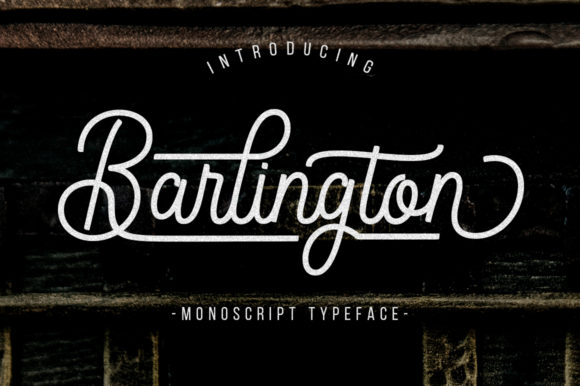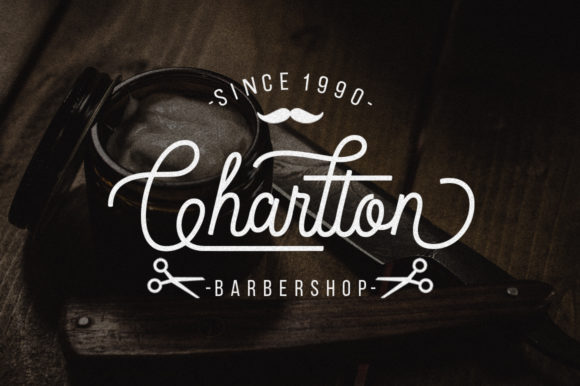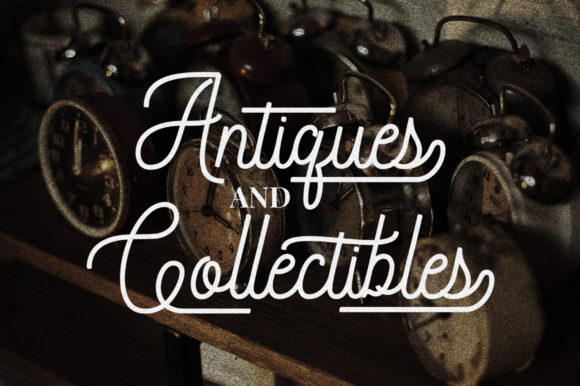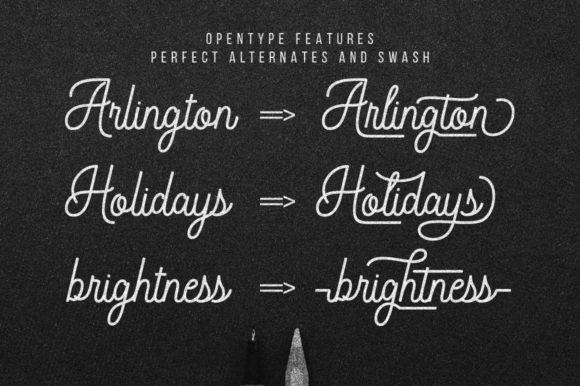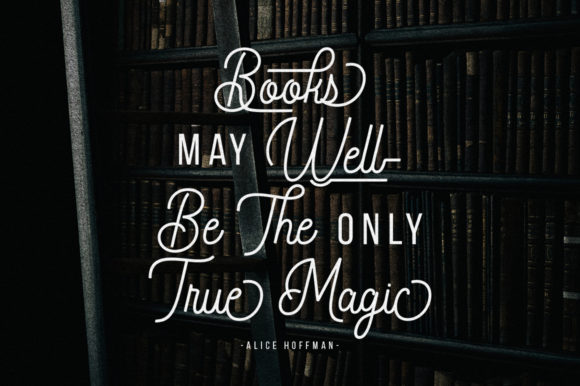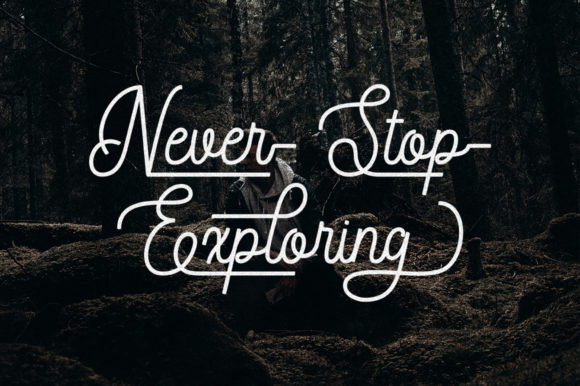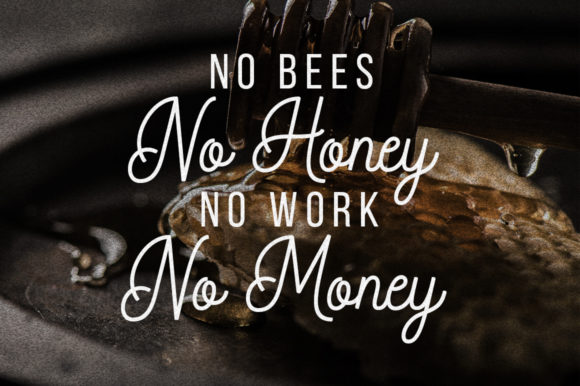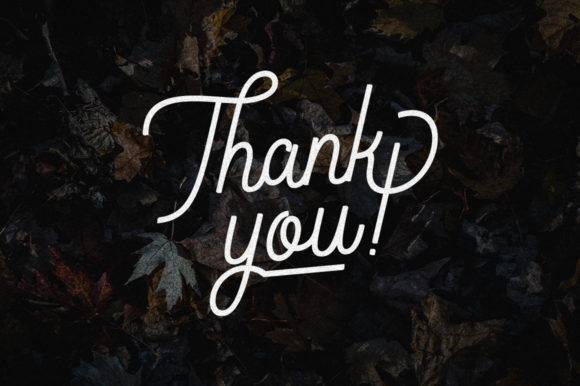
HomeScript FontsBarlington Font Script Fonts Barlington Font FacebookXPinterestWhatsApp Barlington Font Poster 2 Barlington Font Poster 3 Barlington Font Poster 4 Barlington Font Poster 5 Barlington Font Poster 6 Barlington Font Poster 7 Barlington Font Poster 8 About Barlington Font Barlington is a classy script with a fancy approach to calligraphy. Get inspired by its unique charm! DOWNLOAD ON CREATIVE FABRICAThis font is sold and delivered by Creative Fabrica. Font Canyon may earn a commission if you buy through this link. People also explored Sweet Kids Font Dahlia Font Rogery Passengers Side Rear Car Mockup Keyna Font Just Mother Font Windy Font The Royal Drunkgun Script Font 350 0 TagsBarlington Font Previous articleHeartales FontNext articleMahenda Font LEAVE A REPLY Cancel reply Comment: Please enter your comment! Name:* Please enter your name here Email:* You have entered an incorrect email address! Please enter your email address here Website: Save my name, email, and website in this browser for the next time I comment. Personal Use Free Burgie Personal Use Free Read more about this font White Rose Personal Use Free Read more about this font Anjhay Personal Use Free Read more about this font Gratisan Personal Use Free Read more about this font BLOG Best Fonts for T-Shirt Design – Top 2025 Picks In 2025, t-shirt design has become more than just fashion—it's a form of self-expression. Whether you're... Exploring Font Trends Where to Buy American Fonts Online in 2024 Fonts That Capture the Spirit of New York City